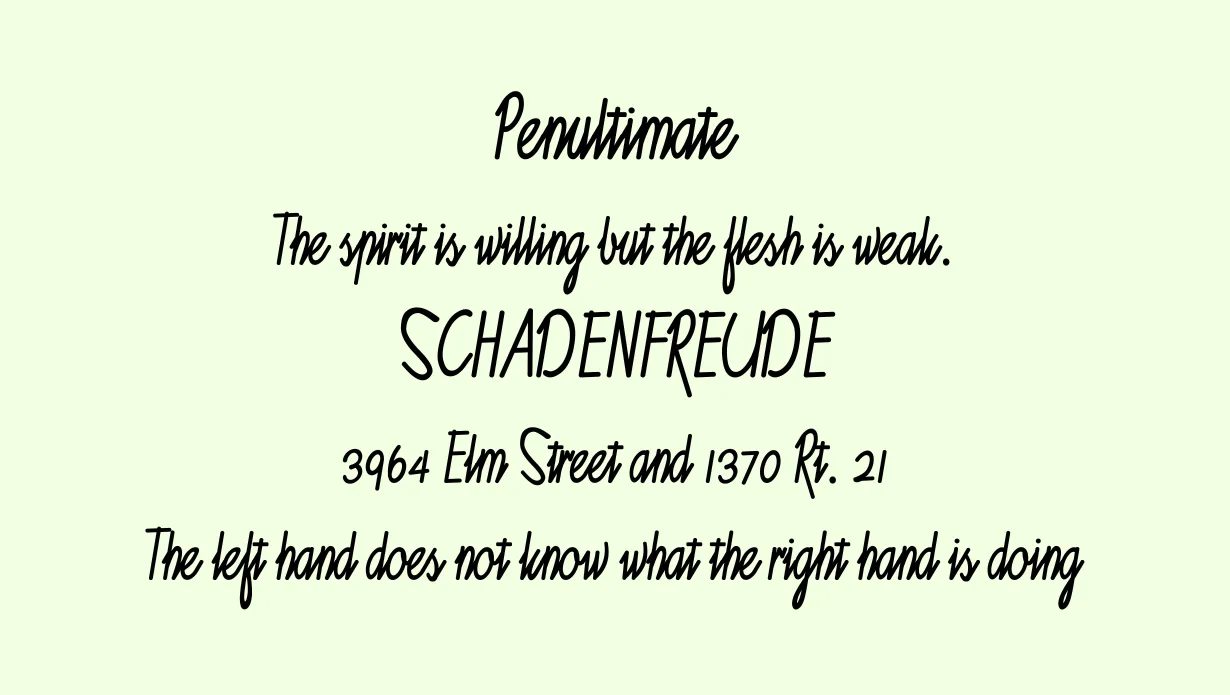
Ruth Font is perfect for logos, posters and printing purposes. We suggest you use this great font for your projects. Especially those hanging in bars, billiard halls, motels, and night clubs.
We also took this font that looks like the retropus into consideration the Photo-lettering One Line manual to solve ligatures and alternatives.
Style Of Ruth Font